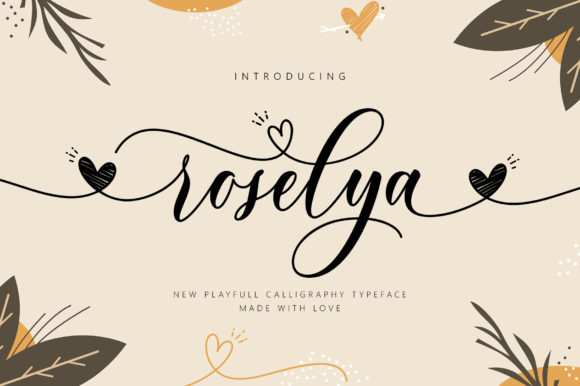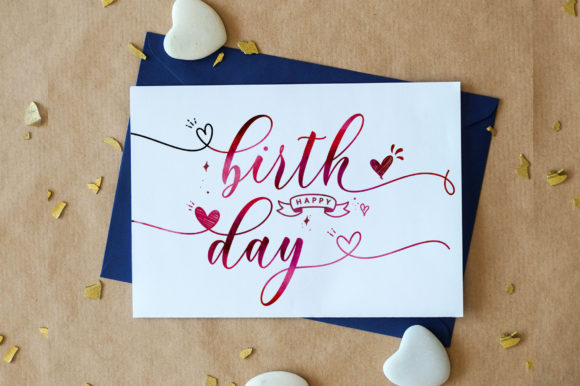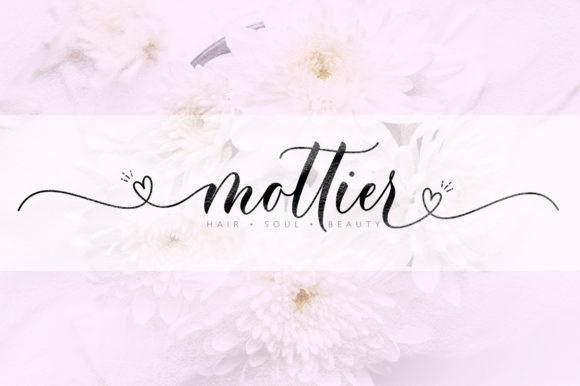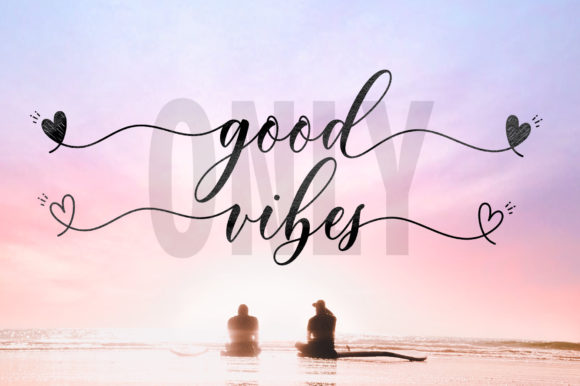
Roselya Script Font Font
About the Roselya Script Font Font
Add a touch of class to your work with the Roselya Script Font Font, a truly exceptional typeface. Roselya Script is a romantic and sweet calligraphy typeface with characters that dance along the baseline. It will add a luxury spark to any design project that you wish to create! This font is PUA encoded which means you can access all of the amazing glyphs and ligatures with ease!
Roselya Script excels in applications requiring a touch of elegant femininity. Ideal for short headlines, logos, wedding invitations, and social media graphics, its graceful curves add a touch of luxury. Avoid using it for large blocks of text or body copy; the script’s ornate nature can hinder readability in extended passages. Similarly, UI applications or situations demanding high legibility should utilize a more functional typeface.
Pairing Roselya Script with a clean sans-serif like Montserrat for body text creates a balanced and sophisticated aesthetic. For a more playful contrast, consider pairing it with a geometric sans-serif such as Futura. Alternatively, a simple serif font like Playfair Display can add a touch of classic elegance while maintaining visual harmony.
Roselya Script’s core personality is romantic and sophisticated, conveying a sense of refined luxury and gentle charm. Brands targeting a female demographic, specializing in beauty, fashion, or events, will find it particularly effective.